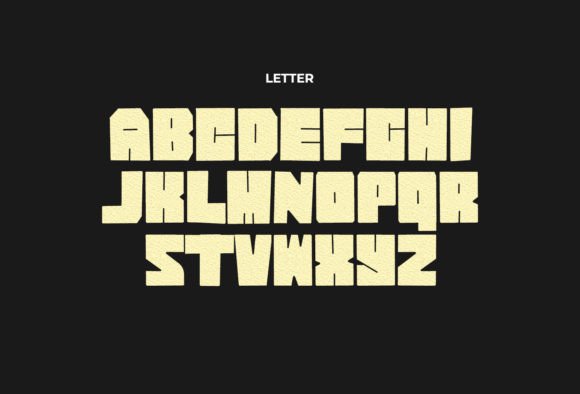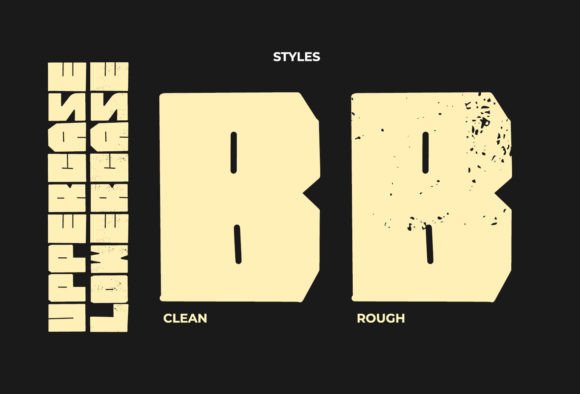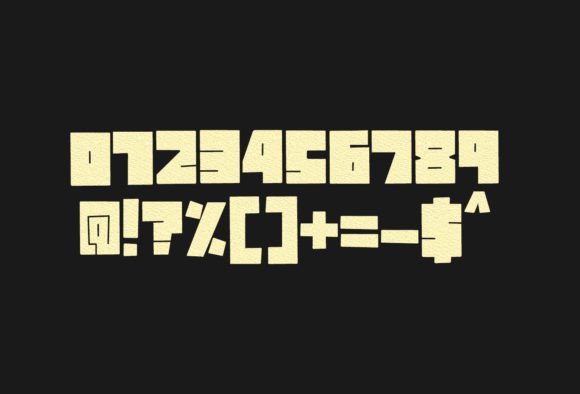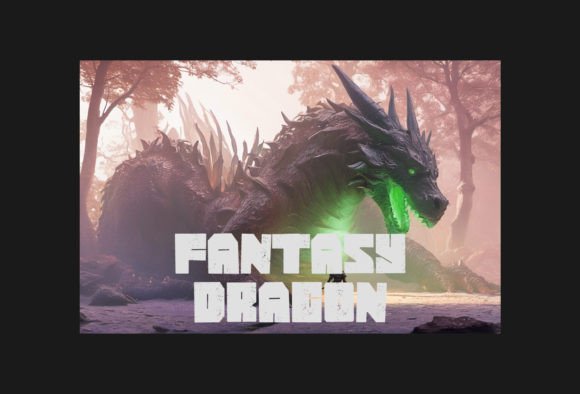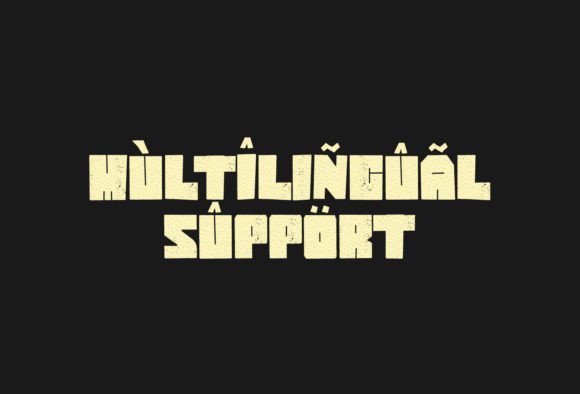
Introduction to Saber Font
Saber: A powerhouse in the world of fonts, this chunky block bold display typeface means business.
With robust lines and a commanding presence, Saber makes a bold statement while maintaining a touch of modern flair Perfect for headlines and attention-grabbing designs, Saber cuts through the noise with its confident and impactful style.